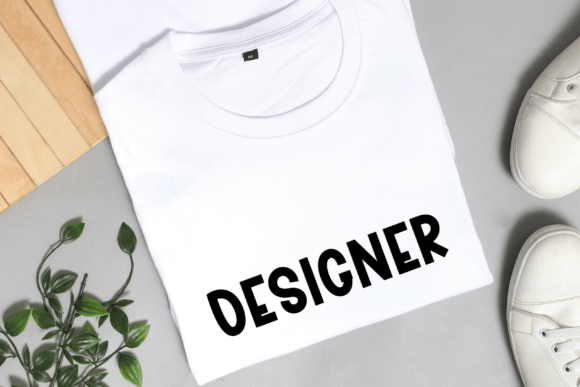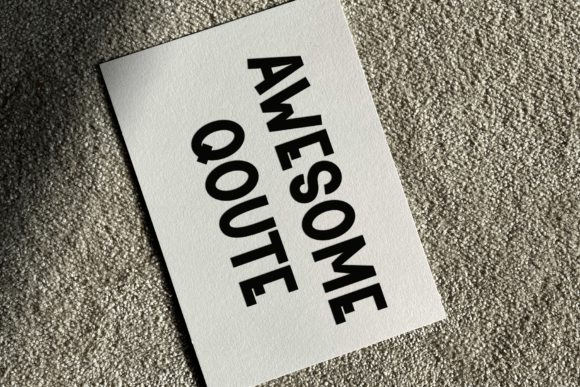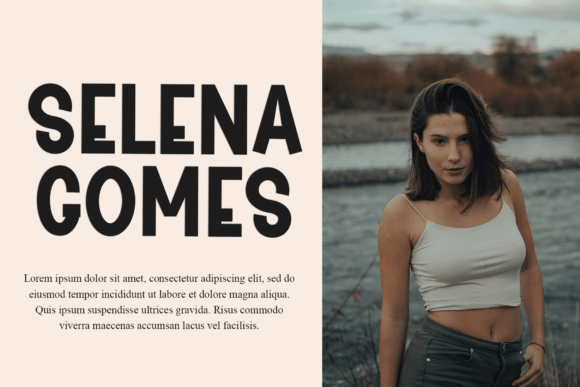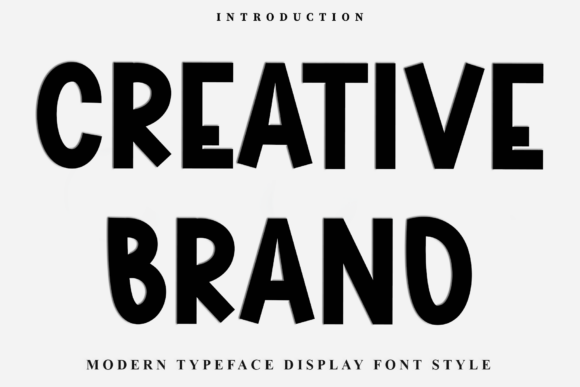
Introduction to Creative Brand Font
Creative Brand is a sharp, modern display font with bold angles and clean lines.
Designed for branding, advertising, and impactful titles, this typeface delivers clarity, confidence, and a contemporary edge .
Key Features of Creative Brand Font
Why Choose Creative Brand Font?